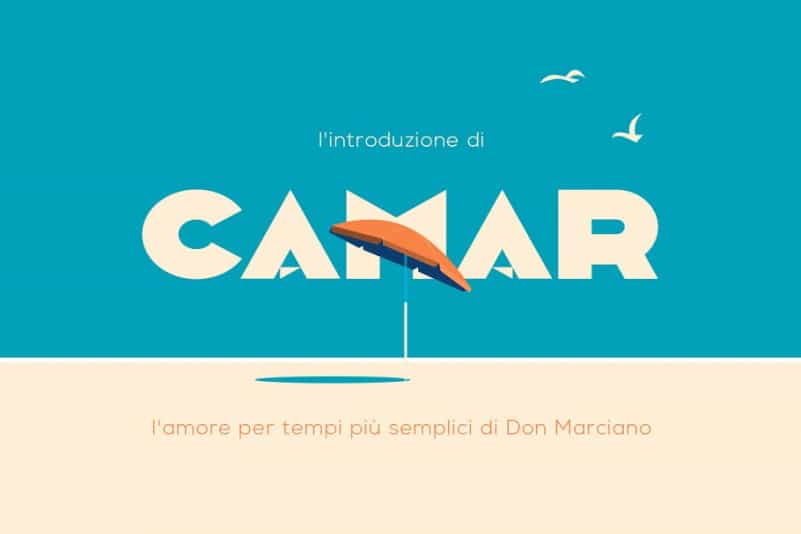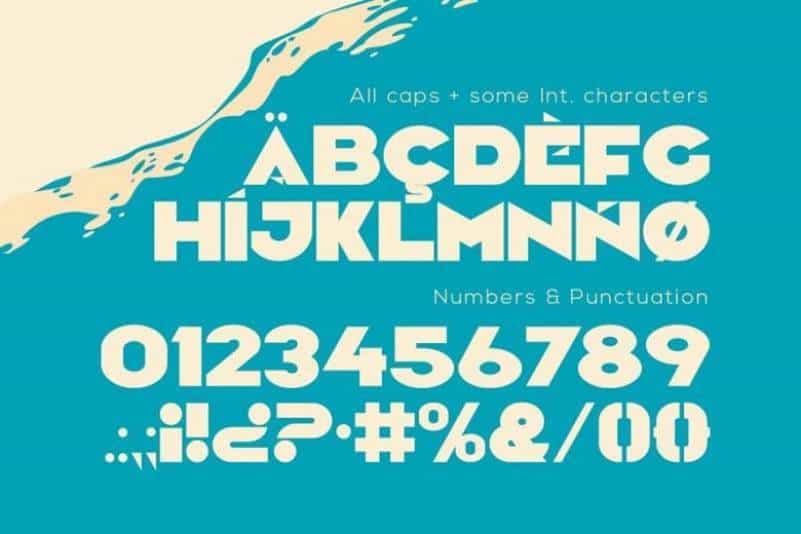
Camar is a bold, clean, and simple display font. It mainly uses a decorative style, but it does not ignore its simplicity. Camar comes with all caps, making every word standing out. It’s great to give short words a very impactful look.